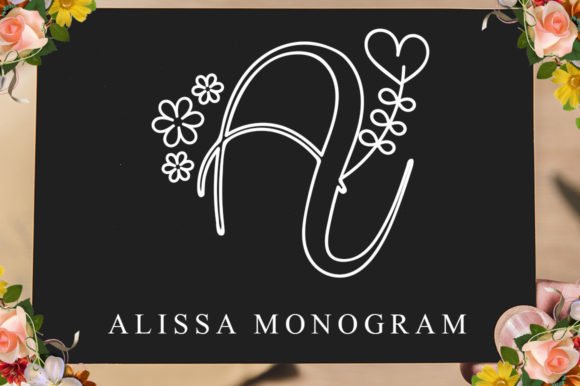
Falling in Love with the Perfect Font
There’s nothing quite like the thrill of discovering the perfect font to bring your creative vision to life. You’ve spent hours browsing through countless options, but nothing seems to capture the essence of your project until you stumble upon the Alissa Monogram Font. This romantic decorative font is more than just a pretty face – it’s a timeless style that exudes elegance and sophistication.
Whether you’re designing wedding invitations, custom stationery, or any other project that requires a touch of whimsy, the Alissa Monogram Font is sure to impress. Its incredibly distinct style makes it a valuable addition to any designer’s toolkit, allowing you to create spectacular designs that stand out from the crowd.
With its unique blend of romance and refinement, the Alissa Monogram Font is an absolute must-have for any designer looking to add a touch of magic to their work.
Alissa Monogram Font Key Features
- Font Family: Alissa Monogram Font is a unique monogram font designed for creating custom monograms, logos, and other graphic designs.
- Unique Characteristics: Alissa Monogram Font features a modern and elegant design, with intricate details and flourishes that make it perfect for creating custom monograms and logos.
Alissa Monogram Font Review
As a designer, I was excited to dive into the Alissa Monogram Font. ✨ From the start, I was impressed with the elegant, hand-drawn feel it brings to any design project. The subtle curves and flourishes add a touch of sophistication that’s hard to resist. I loved using it to create custom monograms and special titles for a recent branding project.
Here are some of the key features that make Alissa Monogram Font shine:
- ✨ Elegant, hand-drawn design that adds a touch of sophistication to any project
- ✨ High-quality, crisp typography that’s perfect for both print and digital applications
- ✨ Customizable and versatile, making it suitable for a wide range of design projects
However, I did encounter a few limitations ⚠️:
- ⚠️ Limited font size range, which can make it difficult to use in certain contexts
- ⚠️ Some characters may require additional manual adjustments to fit the design
Overall, I was impressed with the Alissa Monogram Font’s potential and flexibility. While it may have some limitations, its unique design and high-quality typography make it a valuable addition to any designer’s toolkit. With a little creative problem-solving, I think it could be a go-to font for many projects.
The Alissa Monogram Font is ideal for:
- Personalized gift tags and labels.
- Special occasion graphics and decorations.
Alternatives to Alissa Monogram Font for Designers
1. Carolyna Pro Font
Carolyna Pro Font is a modern, elegant monogram font that works well for luxury brands and high-end designs. It has a more sophisticated and refined look compared to Alissa Monogram Font, making it suitable for upscale weddings, fashion brands, or corporate events.
Comparison: Carolyna Pro Font has a more geometric and structured design, whereas Alissa Monogram Font has a more playful and cursive feel. Carolyna Pro Font is ideal for designs that require a touch of sophistication and elegance.
2. Monogramo Font
Monogramo Font is a versatile monogram font that can be used for various designs, from modern to vintage. It has a more rounded and soft appearance compared to Alissa Monogram Font, making it suitable for designs that require a touch of warmth and friendliness.